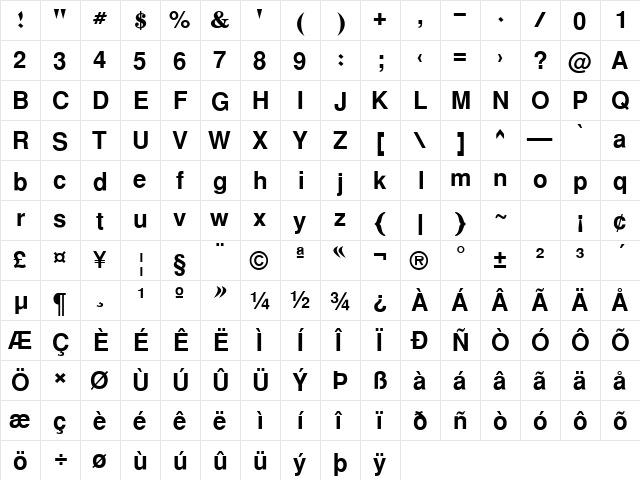
WinSoft Naskh Pro ExtraBold
| Foundry | WinSoft S. A. |
| Designer | Mourad Boutros |
Design Context for WinSoft Naskh Pro Typeface
WinSoft Naskh Pro is a composed and adaptable typeface that performs quietly and consistently across a wide range of design contexts. Its bold stroke weight gives it real presence on the page.